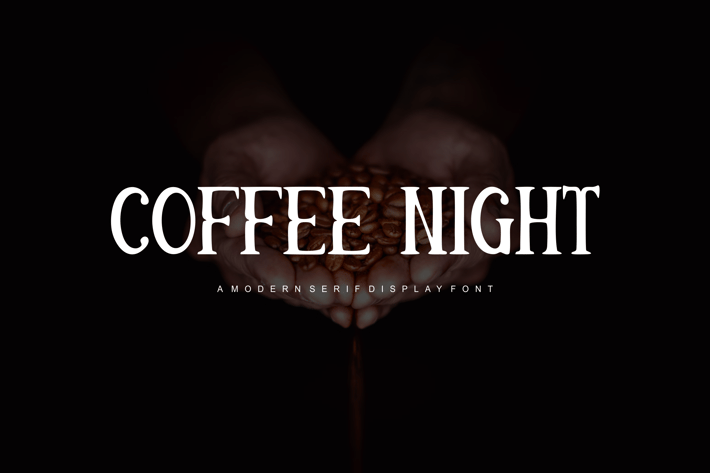
Coffee Night - Modern Serif Display Font
Introducing our new product Coffee Night Font - Modern Font
Coffee Night Font- Modern Font is a bold and authentic display font. The font is suitable for any branding project like logo,
t-shirt printing, esport, and many more. outstanding in a wide range of contexts.
* Coffee Night Uppercase